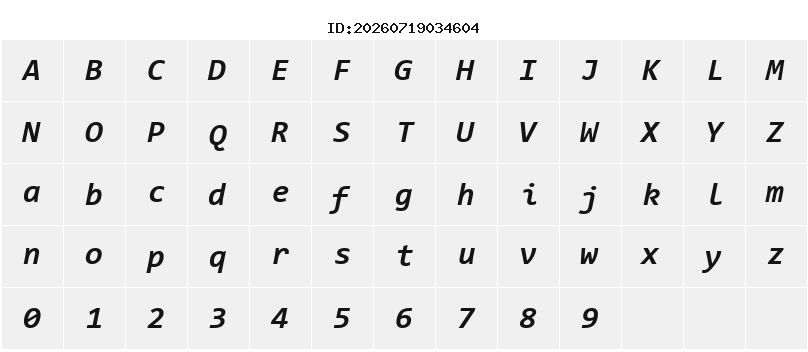
Consolas Preview
• Font Name: Consolas
• Font ID: Microsoft: Consolas Bold Italic: 2005
• Full Font Name: Consolas Bold Italic
• PostScript Name: Consolas-BoldItalic
• Designer: Luc(as) de Groot
• Manufacturer: Microsoft Corporation
• Description: Consolas is aimed for use in programming environments and other circumstances where a monospaced font is specified. All characters have the same width, like old typewriters, making it a good choice for personal and business correspondance. The improved Windows font display allowed a design with proportions closer to normal text than traditional monospaced fonts like Courier. This allows for more comfortably reading of extended text on screen. OpenType features include hanging or lining numerals; slashed, dotted and normal zeros; and alternative shapes for a number of lowercase letters. The look of text can be tuned to personal taste by varying the number of bars and waves.
Consolas.ttf is a modern, elegant sans-serif font designed for ultimate readability and visual harmony. Perfect for branding, headlines, web design, and print materials.